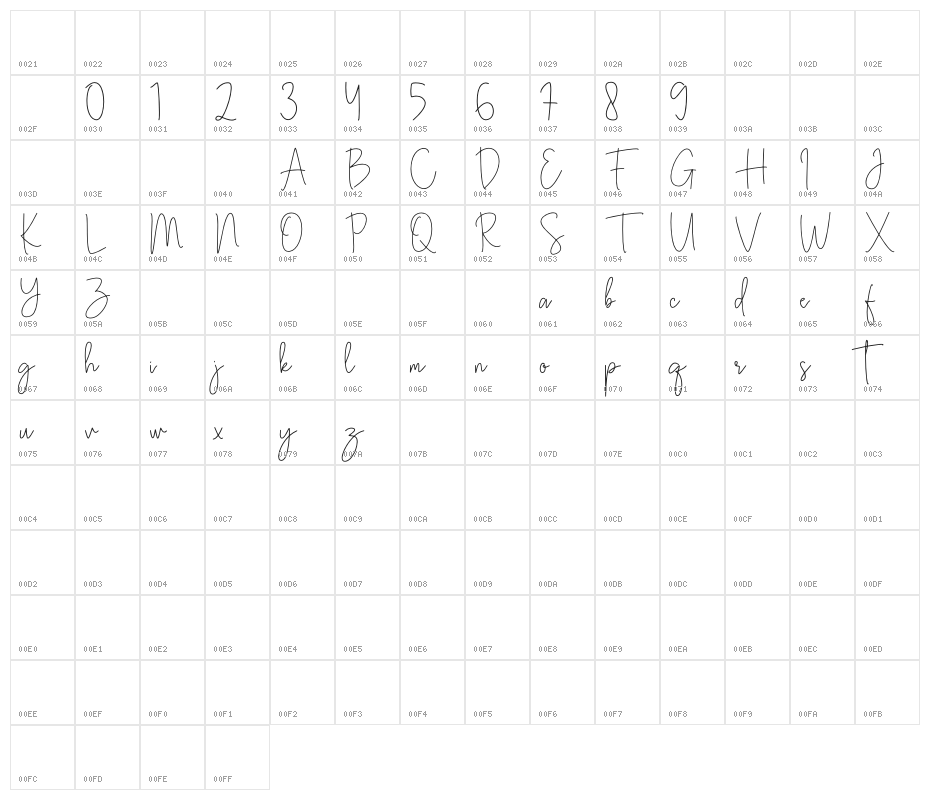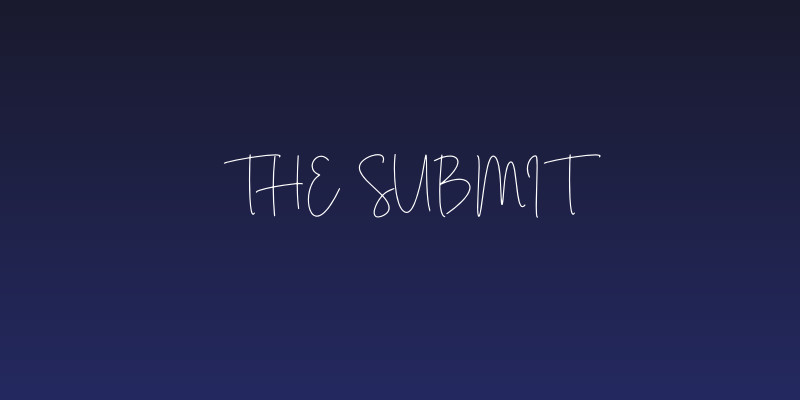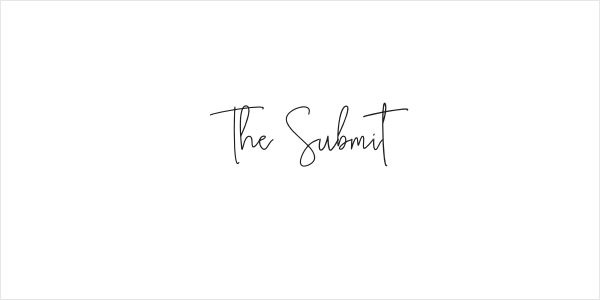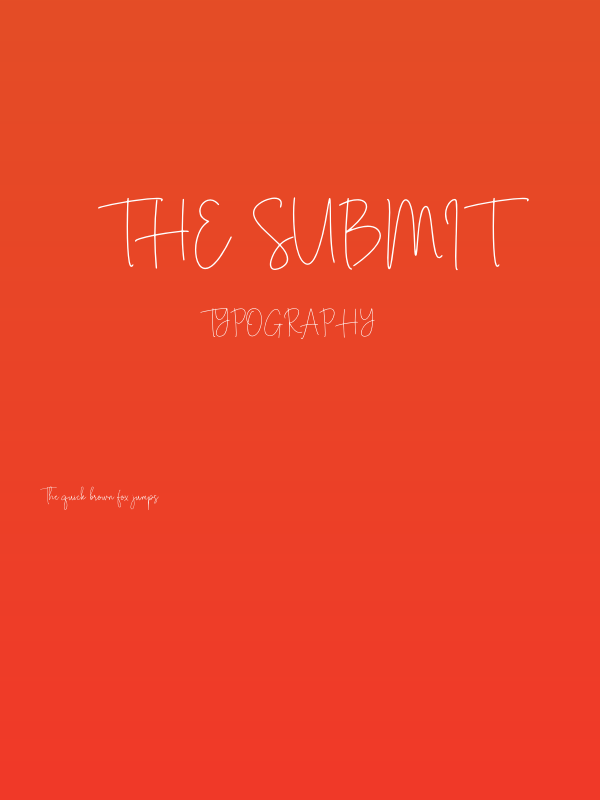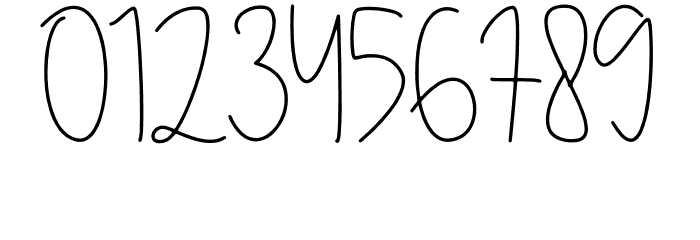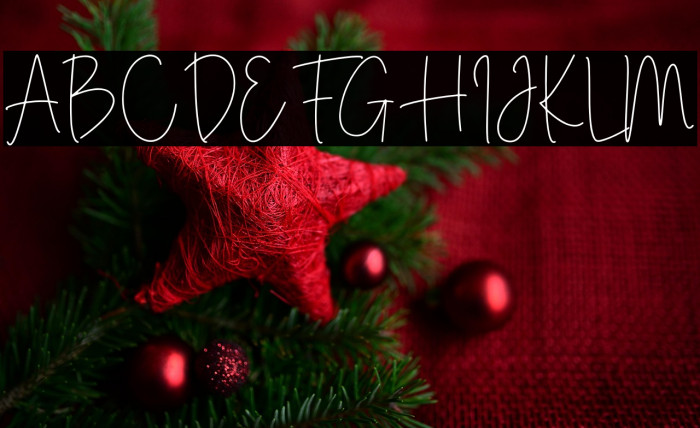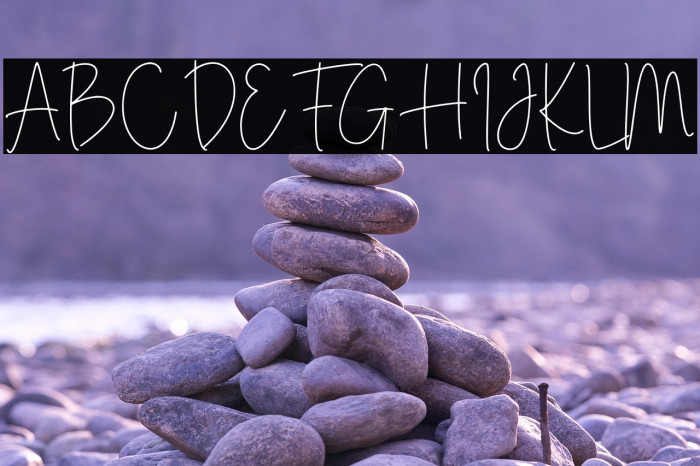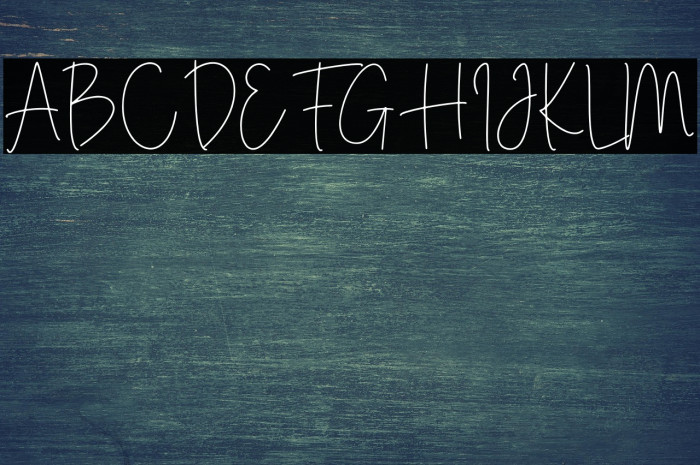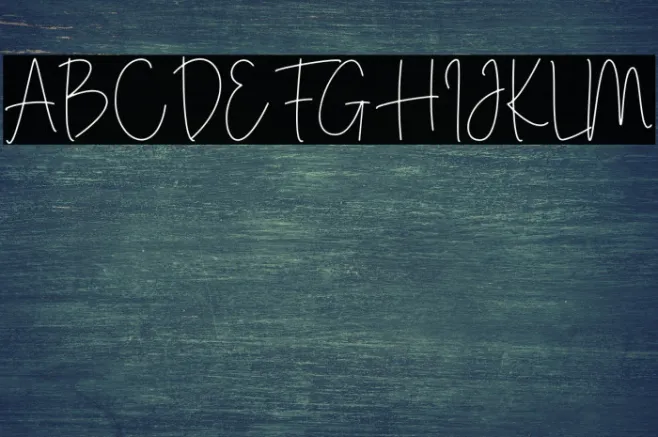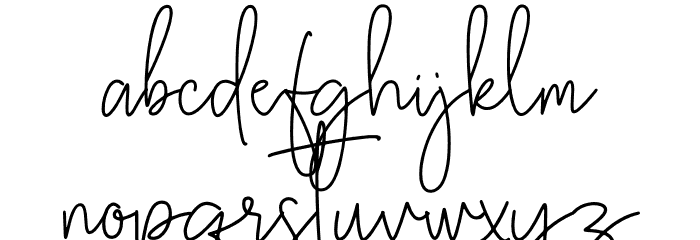
The Submit Font
The Submit Description
This font features a playful and casual handwritten style, characterized by its fluid and organic strokes. The uppercase letters are tall and slender, with a slight slant that adds a dynamic feel. The lowercase letters are more rounded and connected, giving a sense of continuity and flow. The numbers maintain the same playful aesthetic, with varying heights and curves that add to the overall whimsical nature. The special characters are designed to match the informal and friendly tone of the font, making it suitable for creative and informal projects.
| Use Case | Logos, Invitations, Social Media Graphics |
| Proposed Projects | Ideal for greeting cards, invitations, personal branding, and creative social media graphics. |